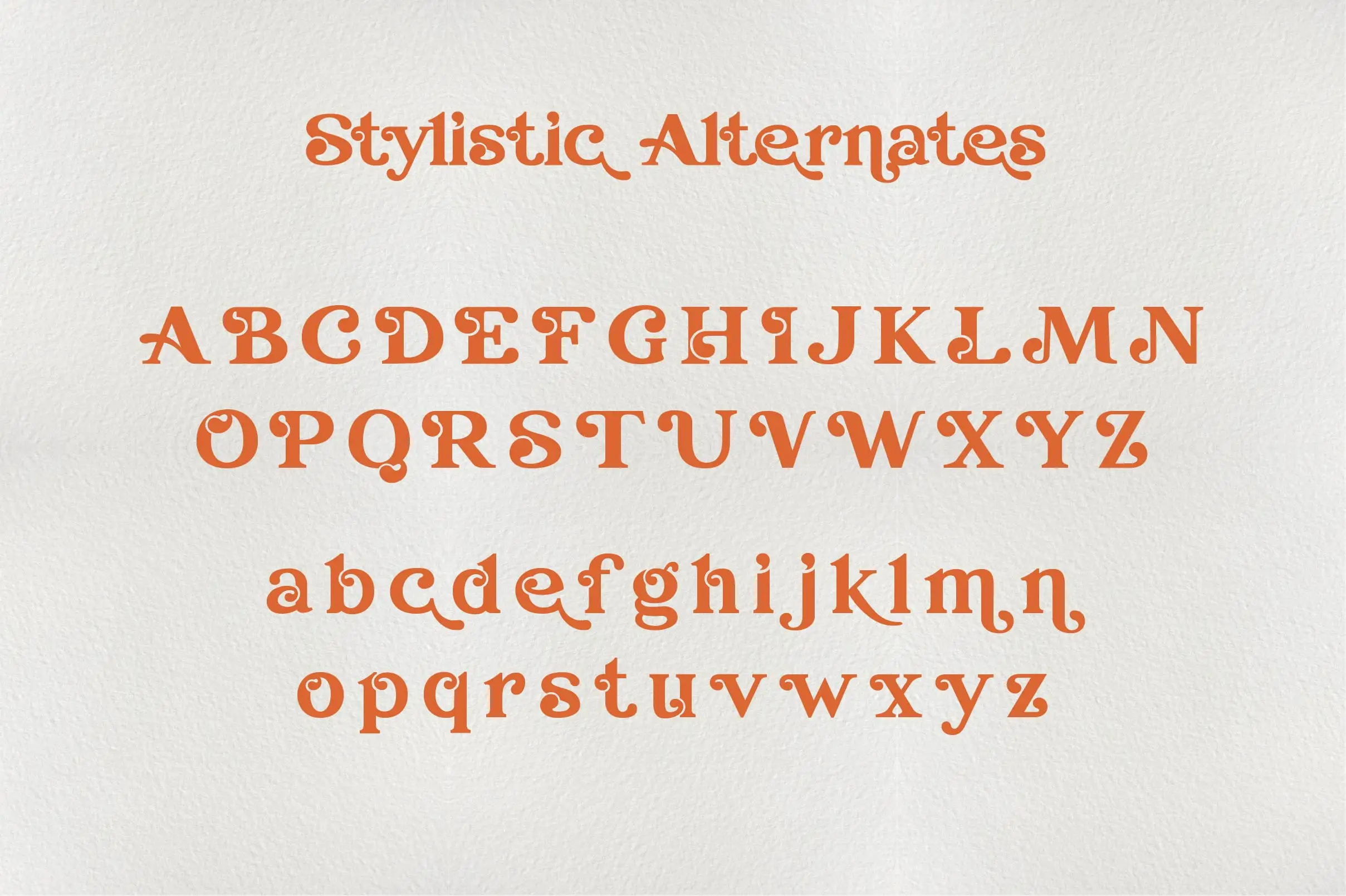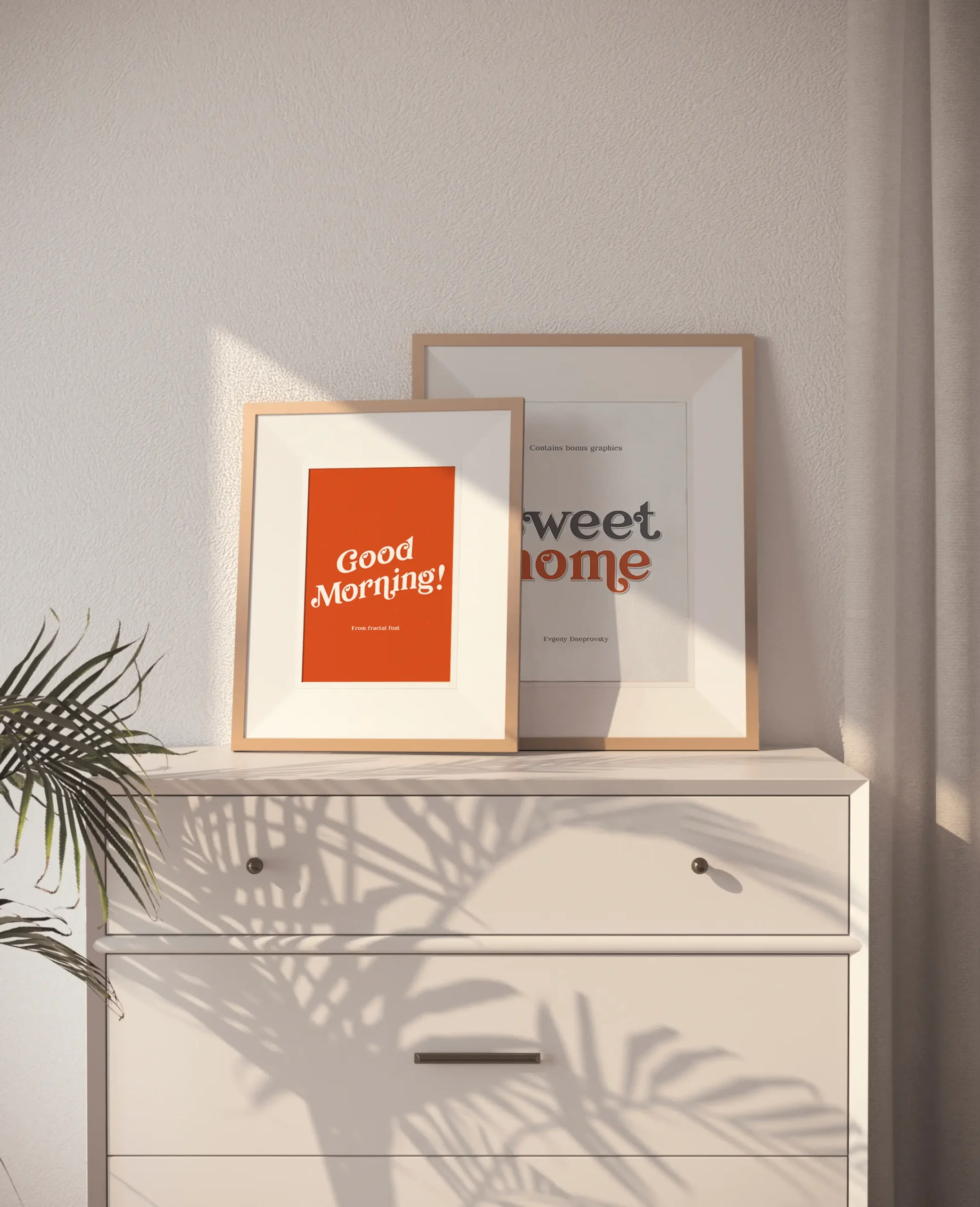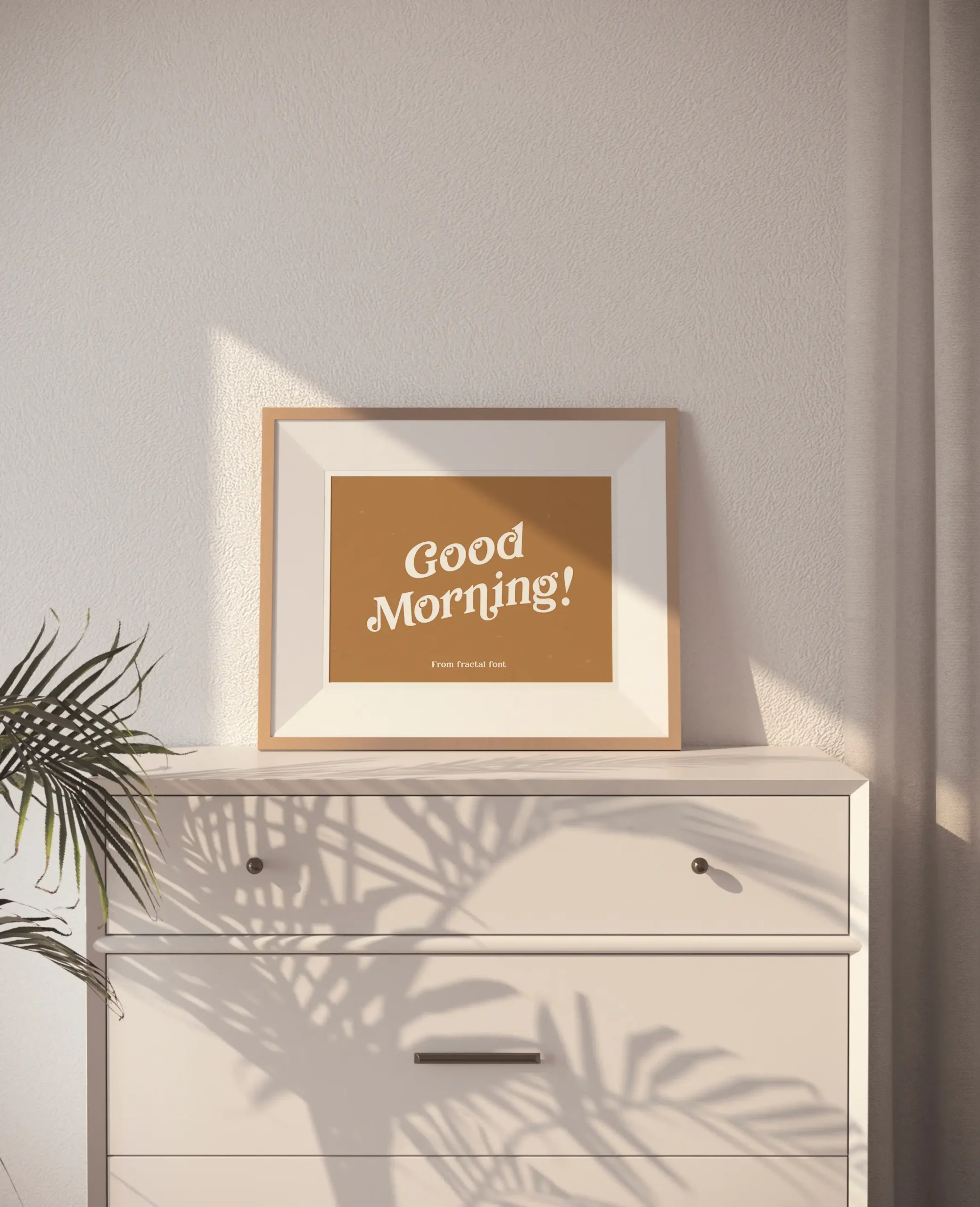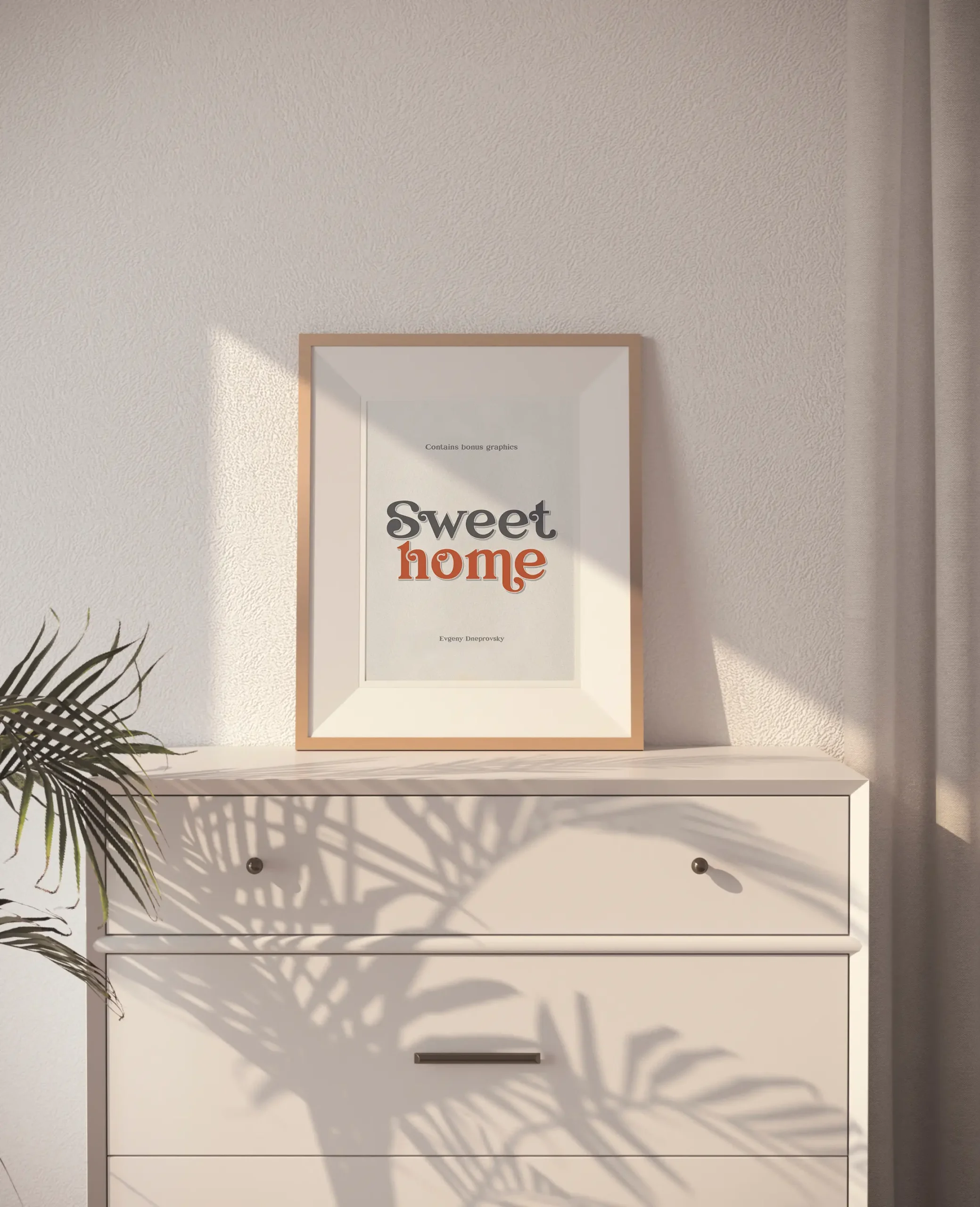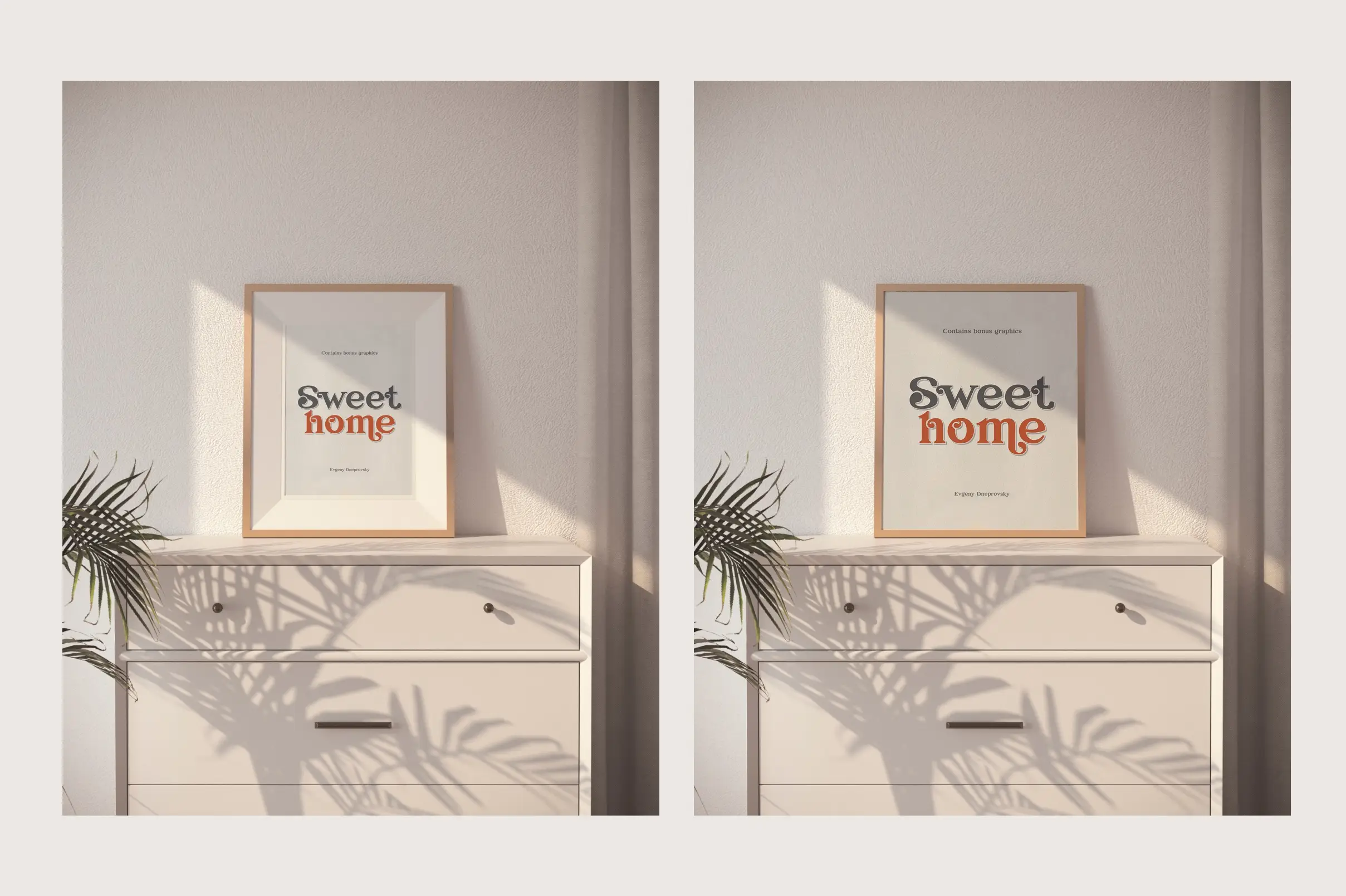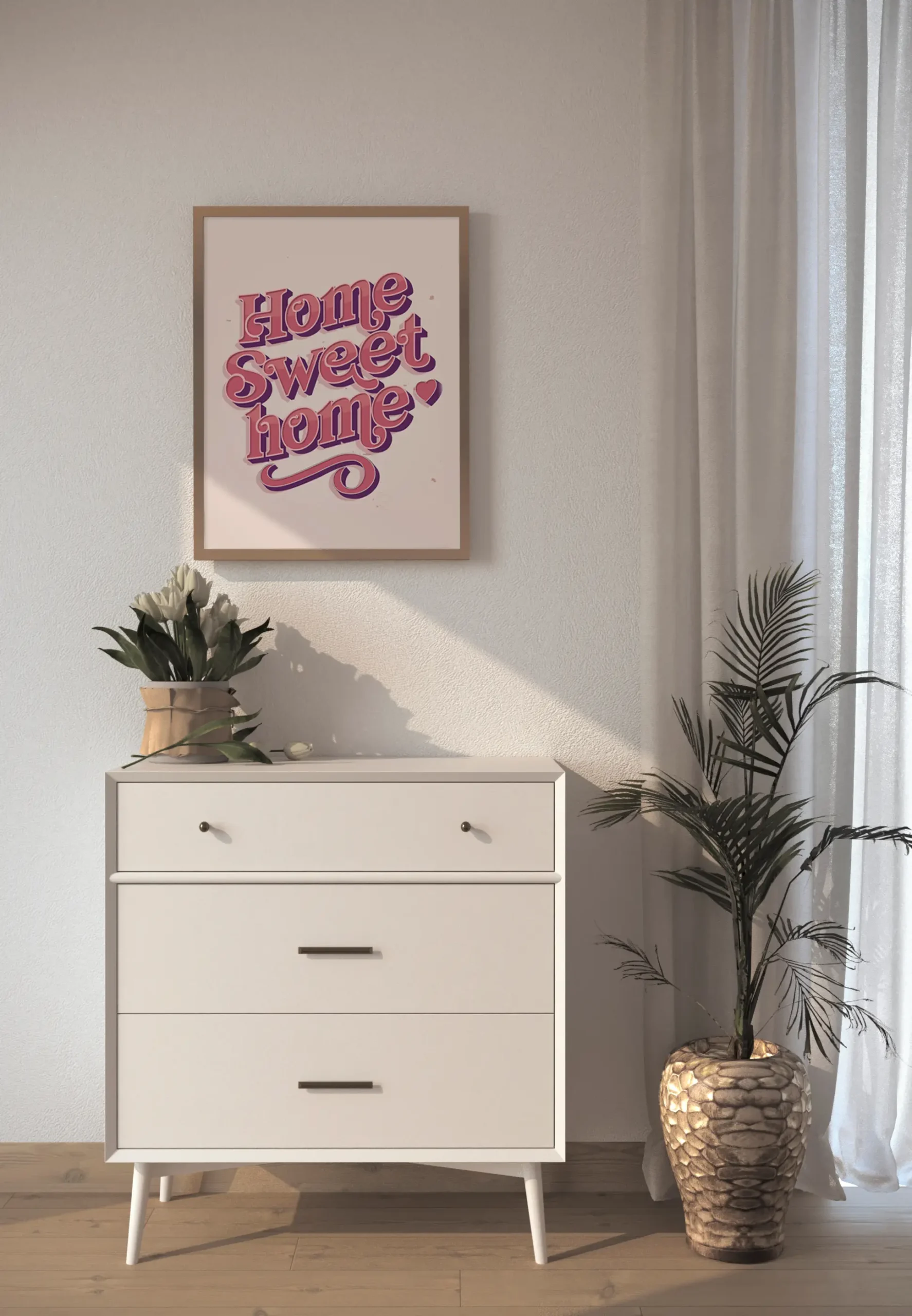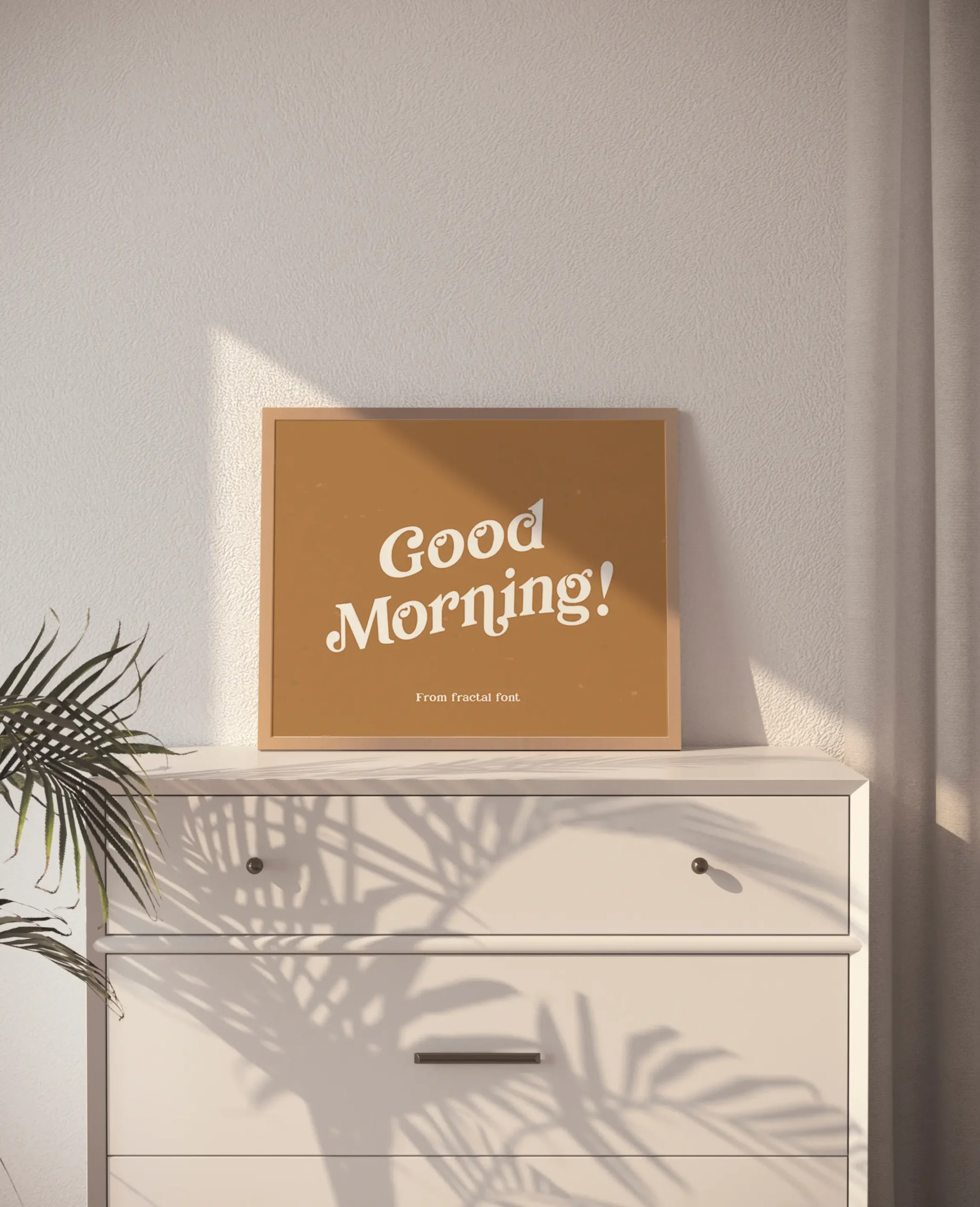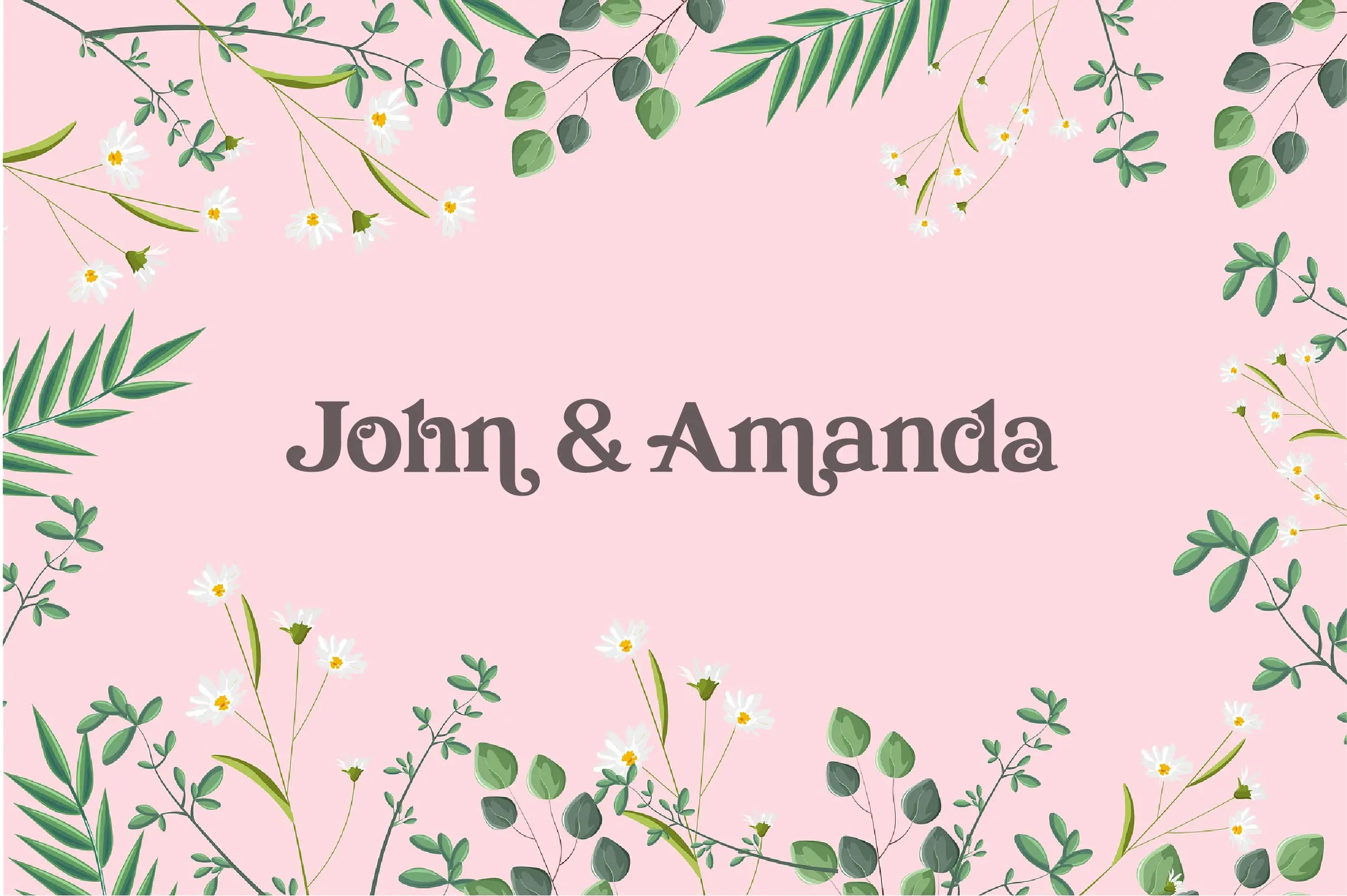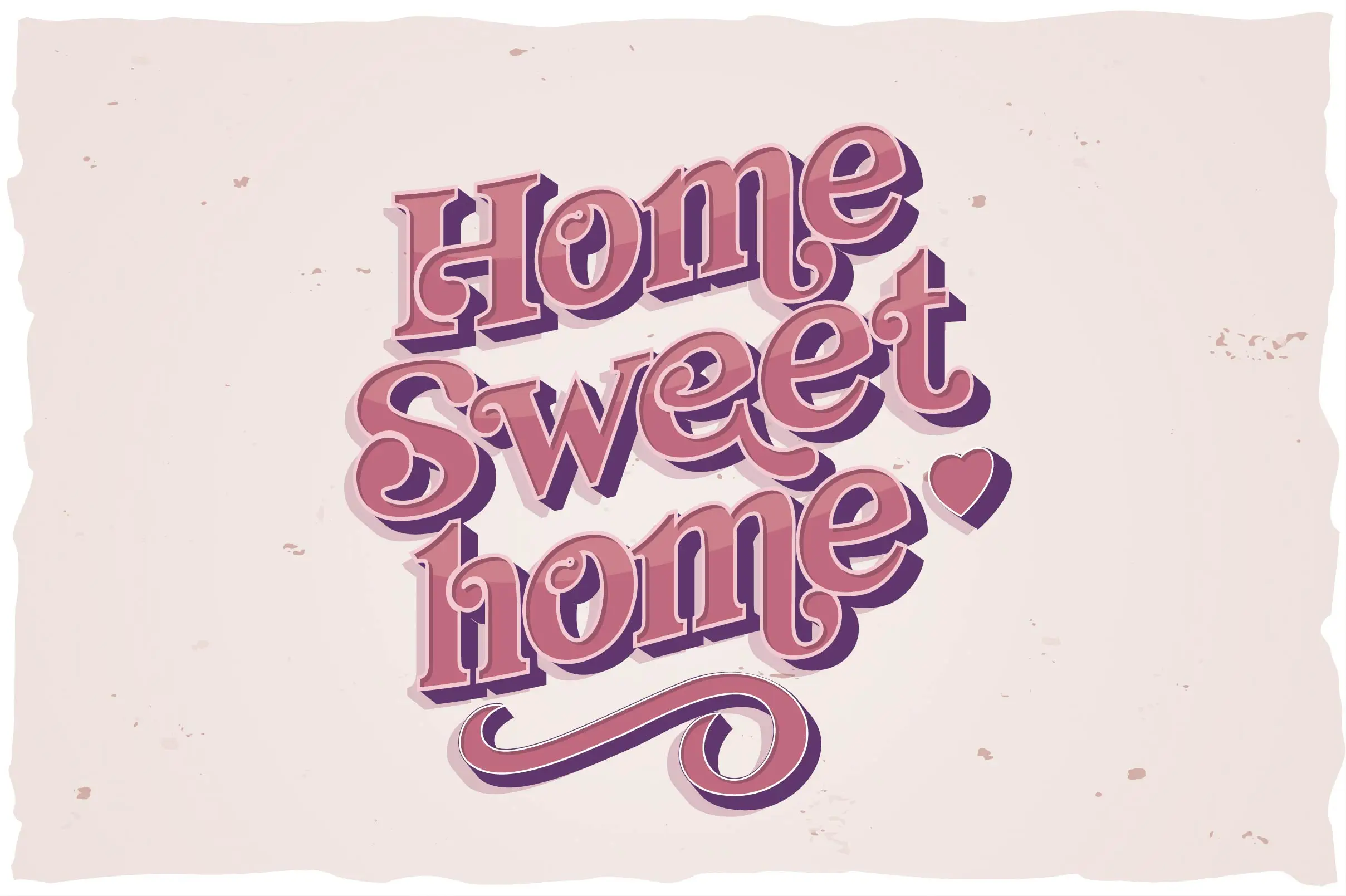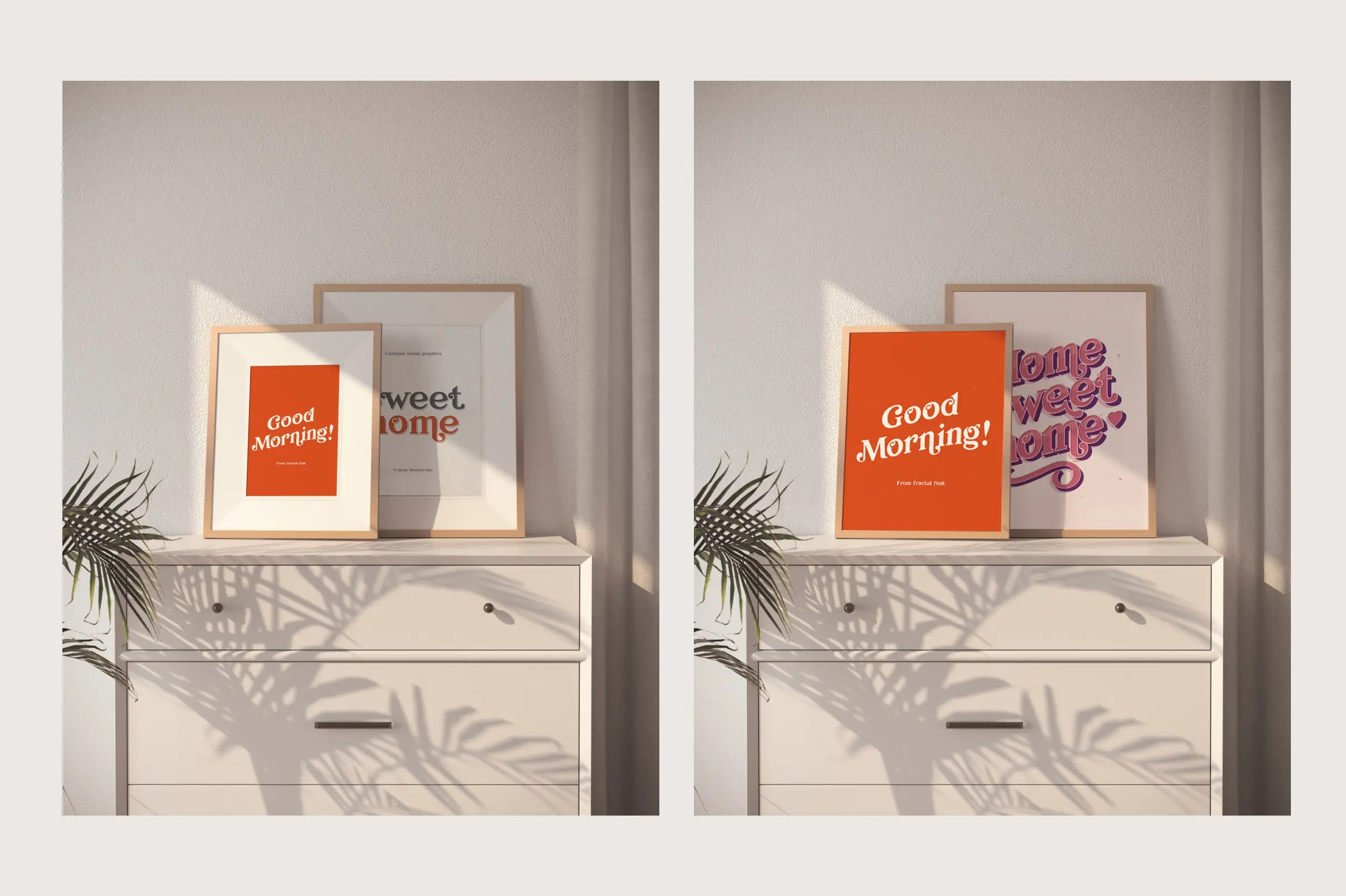
Sweet Home Elegant Font
The Sweet Home Elegant Font is a beautifully crafted typeface that brings a touch of sophistication to any design project. With its graceful curves and stylish letterforms, this font is perfect for a variety of applications.
• Ideal for branding projects, logos, and invitations.
• Great for both print and digital media.
• Use in user interfaces for a modern and elegant look.